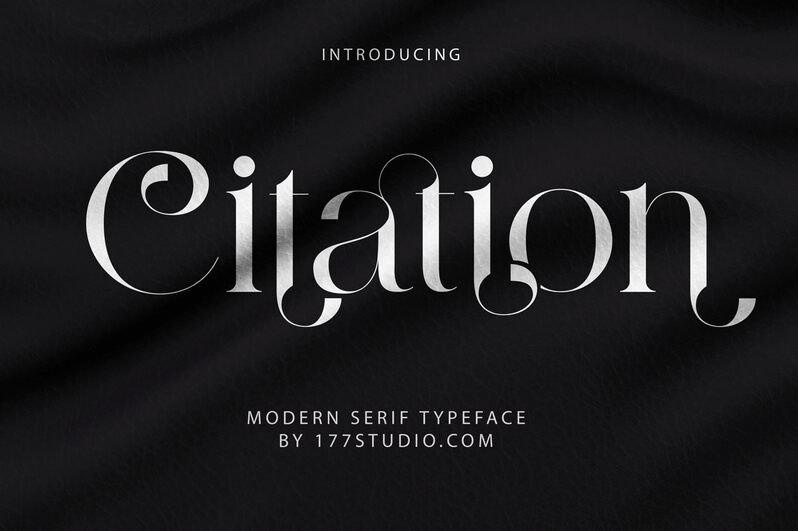
Citation Regular
Citation, a vintage-inspired display font crafted by 177Studio, exudes an air of nostalgia and sophistication. Its semi-light weight lends elegance to any project, from wedding invitations to retro-themed branding campaigns. Perfect for fashion magazines seeking a touch of old-world charm or artisanal product packaging aiming for a vintage appeal. With its carefully designed curves and attention to detail, Citation brings a sense of authenticity and timelessness to logos, posters, and labels alike. Embrace the spirit of the past with this font that effortlessly captures attention while conveying your brand's unique personality.